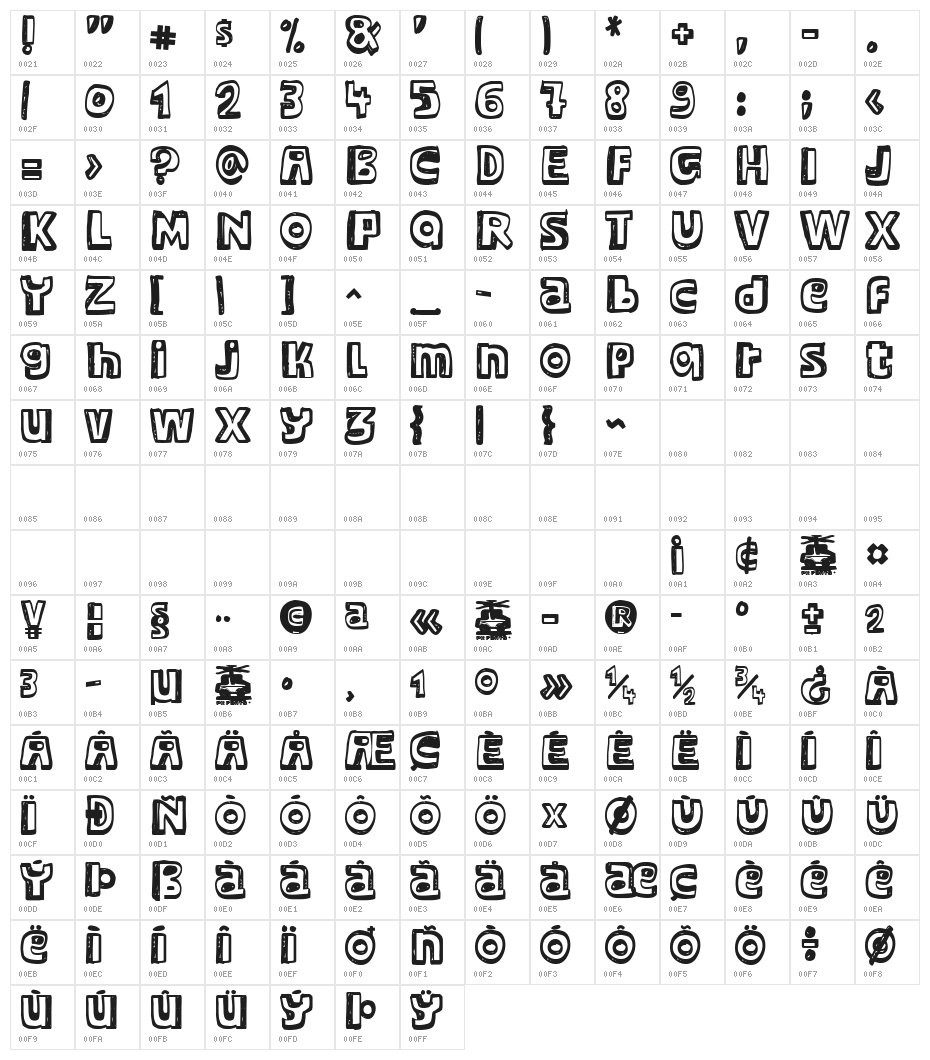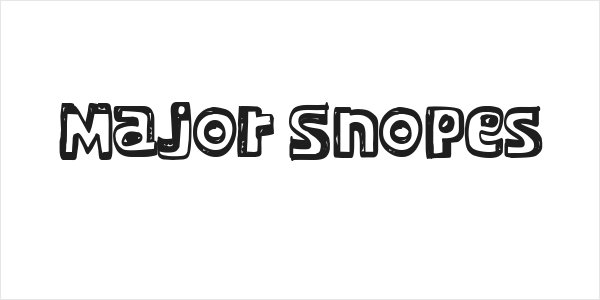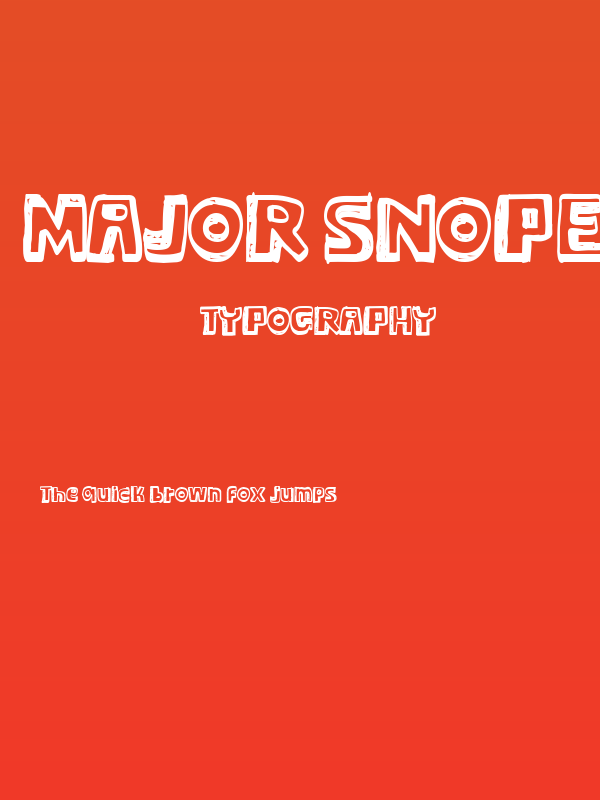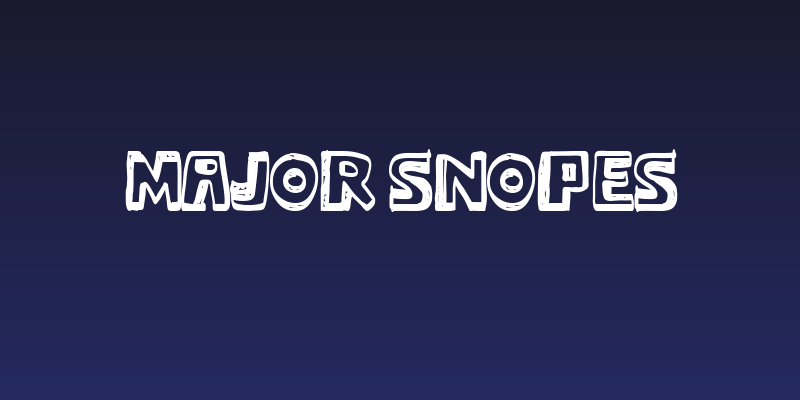
Major Snopes Font
Major Snopes Description
This font features a bold and playful design with a hand-drawn aesthetic. Each character is outlined with a thick, uneven stroke, giving it a textured and slightly distressed look. The letters are uppercase and lowercase, with numbers and a variety of special characters included. The style is reminiscent of comic book lettering, with a fun and informal vibe. The characters are wide and have a consistent height, creating a cohesive appearance across the alphabet. This font is ideal for projects that require a casual and engaging touch, such as children's books, posters, or playful branding.
| Width | Expanded |
| Overall Style | Playful, Comic |
| Use Case | Headlines, Posters, Branding |
| Proposed Projects | Ideal for children's books, playful posters, comic strips, and informal branding. |